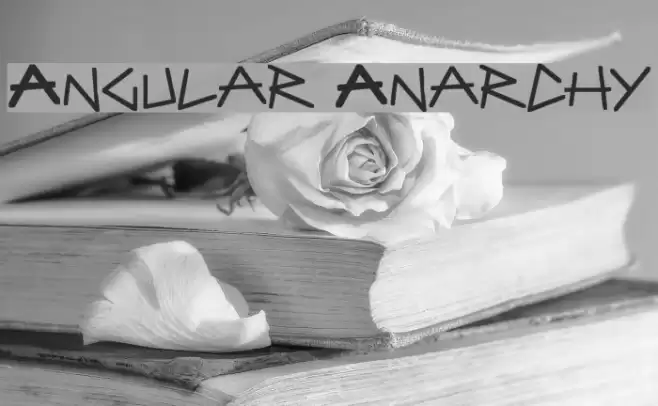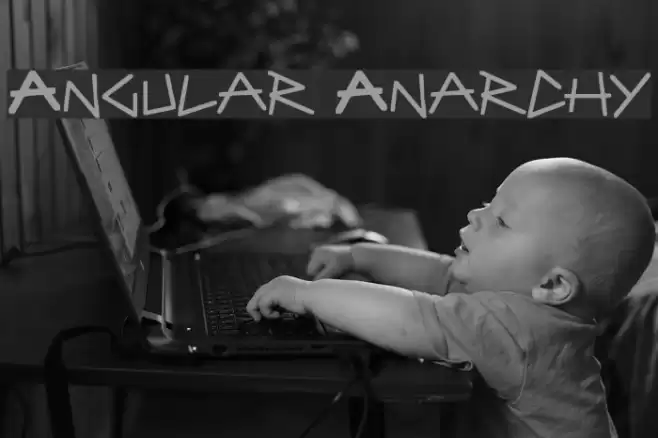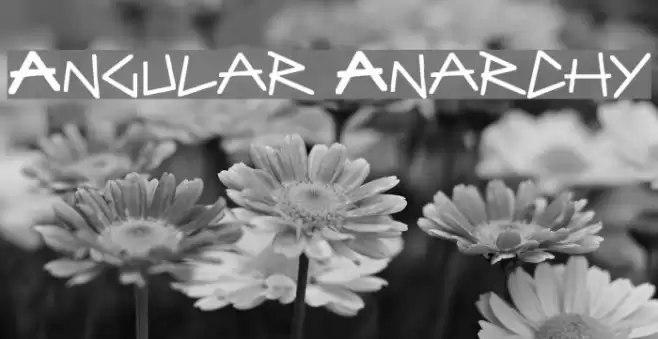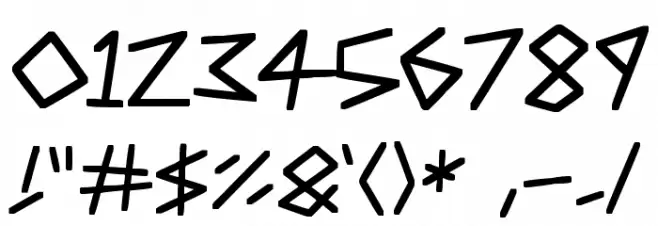
Angular Anarchy Font
Angular Anarchy Description
This font exhibits a bold and rebellious style, characterized by sharp, angular lines and a graffiti-like appearance. The uppercase and lowercase letters maintain a consistent angularity, giving the font a cohesive yet edgy look. The numerals and special characters follow the same design principles, ensuring uniformity across all glyphs. The font's unique style makes it stand out, with each character appearing as if it were hand-drawn with a strong, confident stroke. The overall aesthetic is reminiscent of street art, making it ideal for projects that require a bold, unconventional typeface.
A bold, angular font with a graffiti-inspired, rebellious style from Uncategorized fonts.
- Overall Style: Modern, Urban